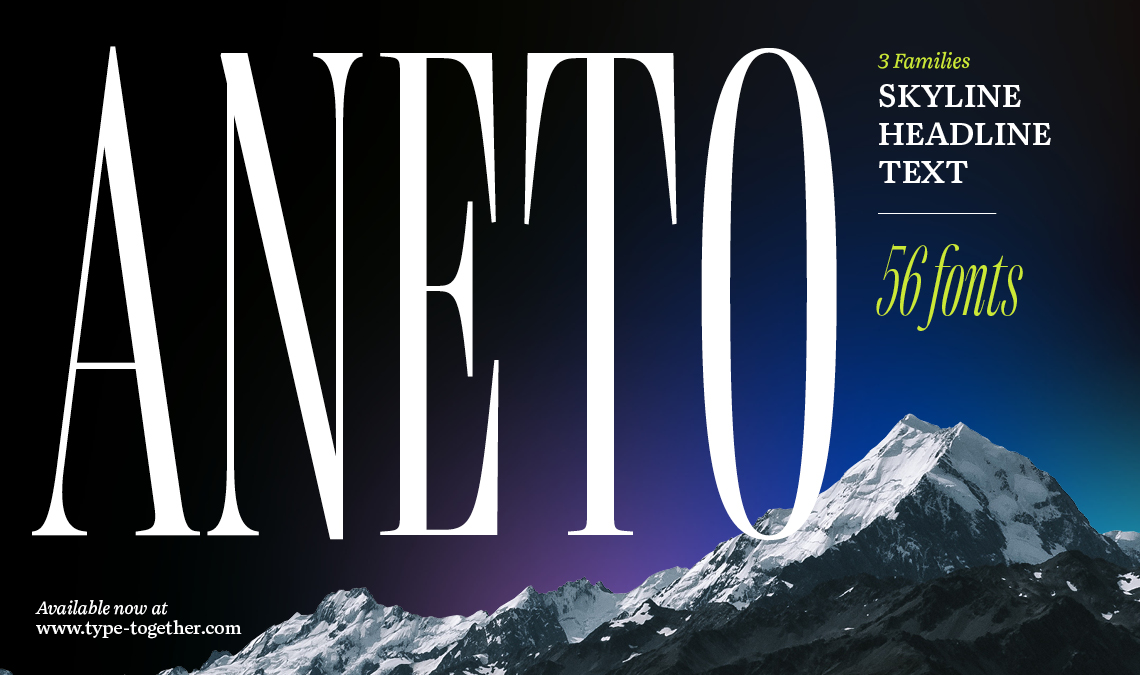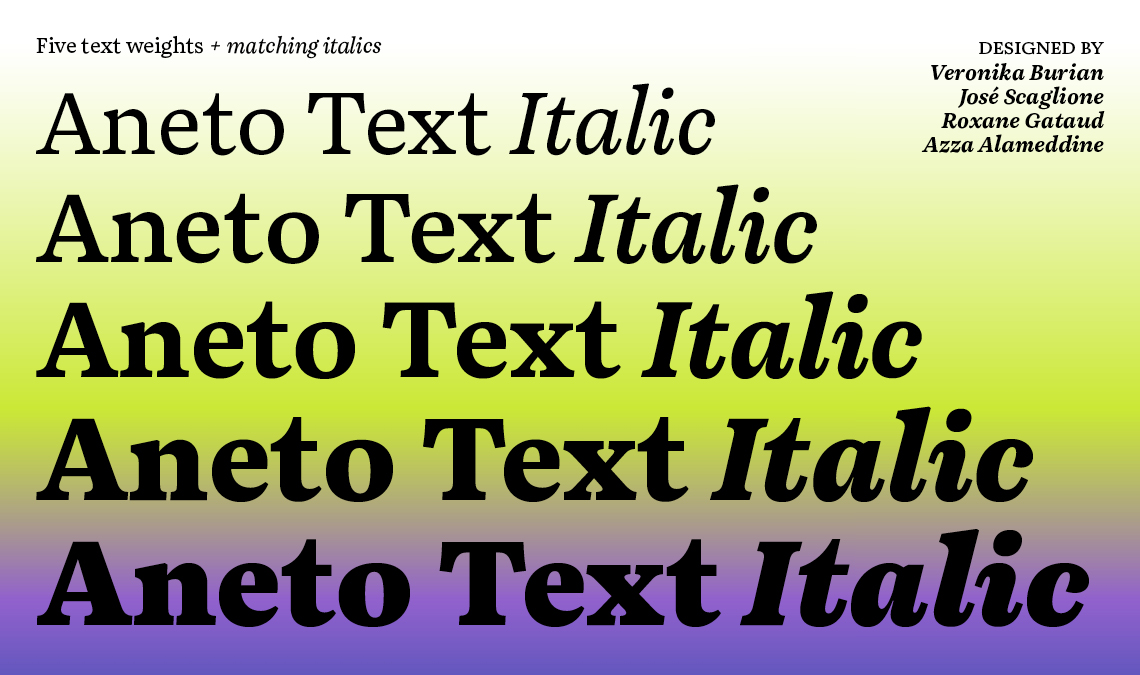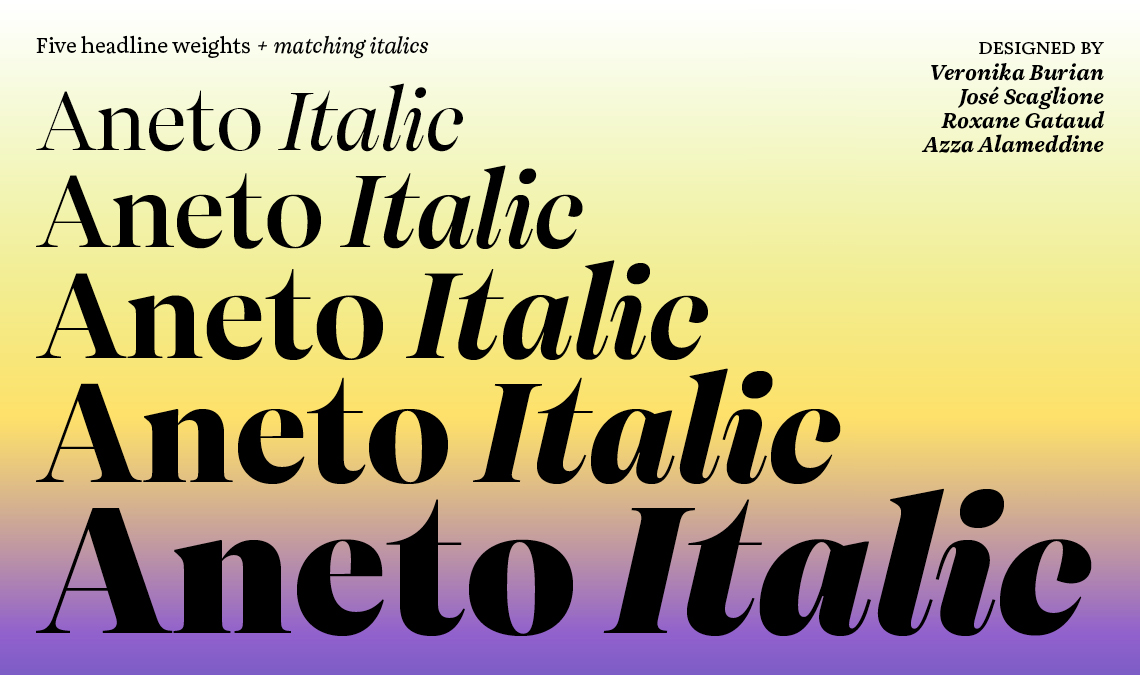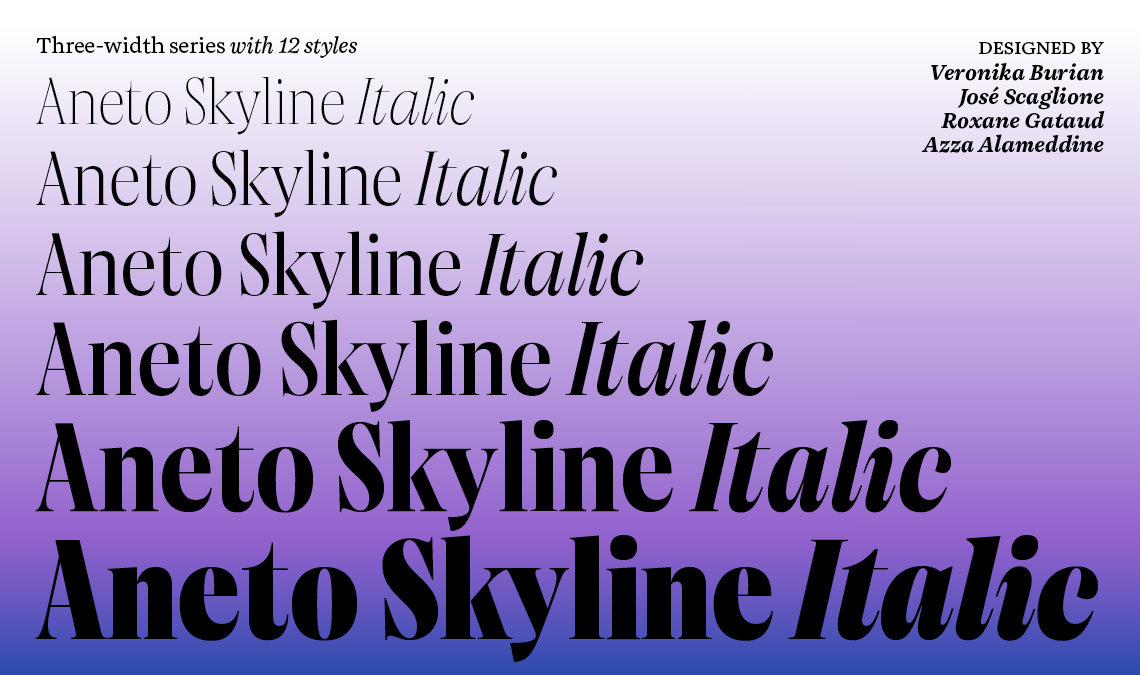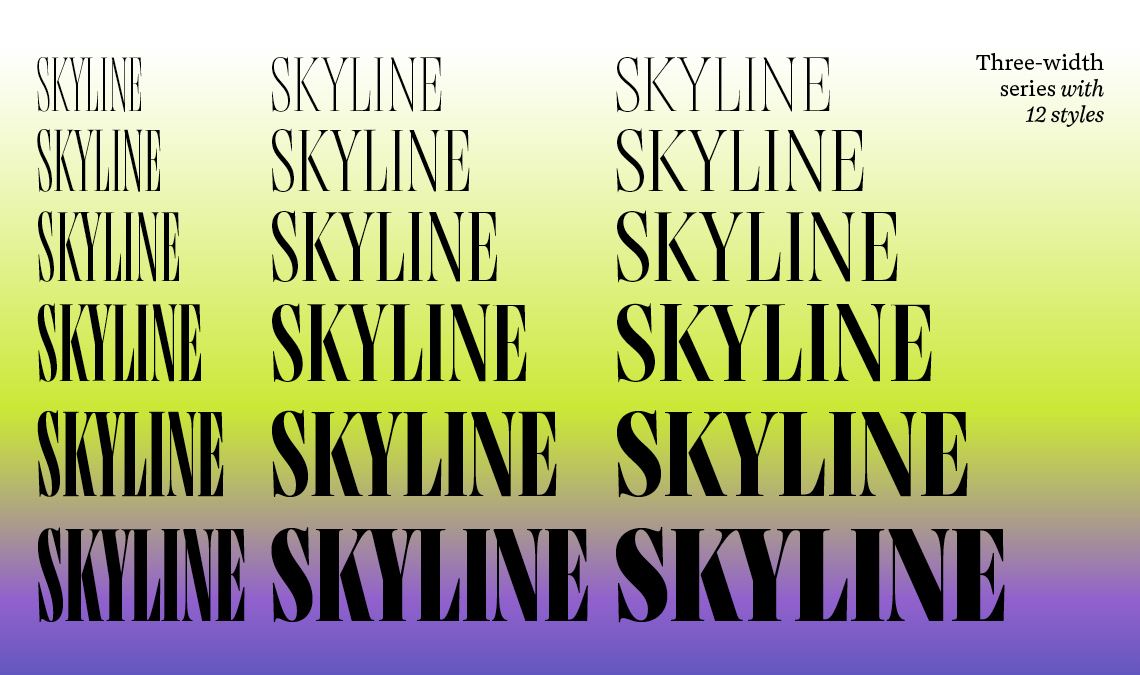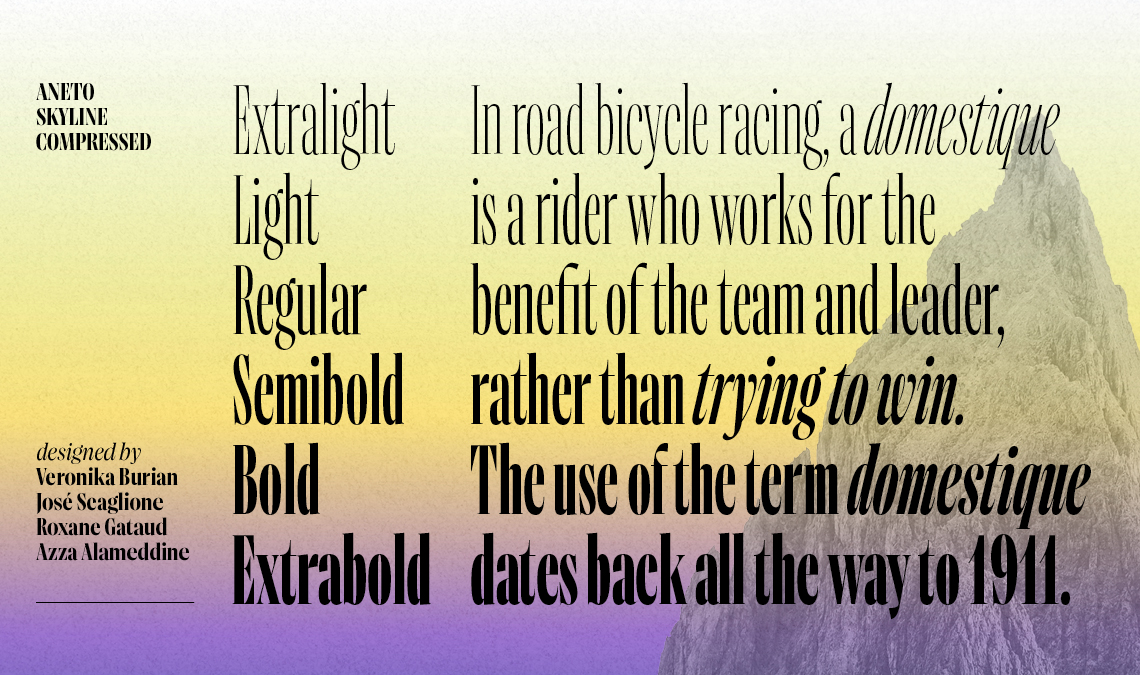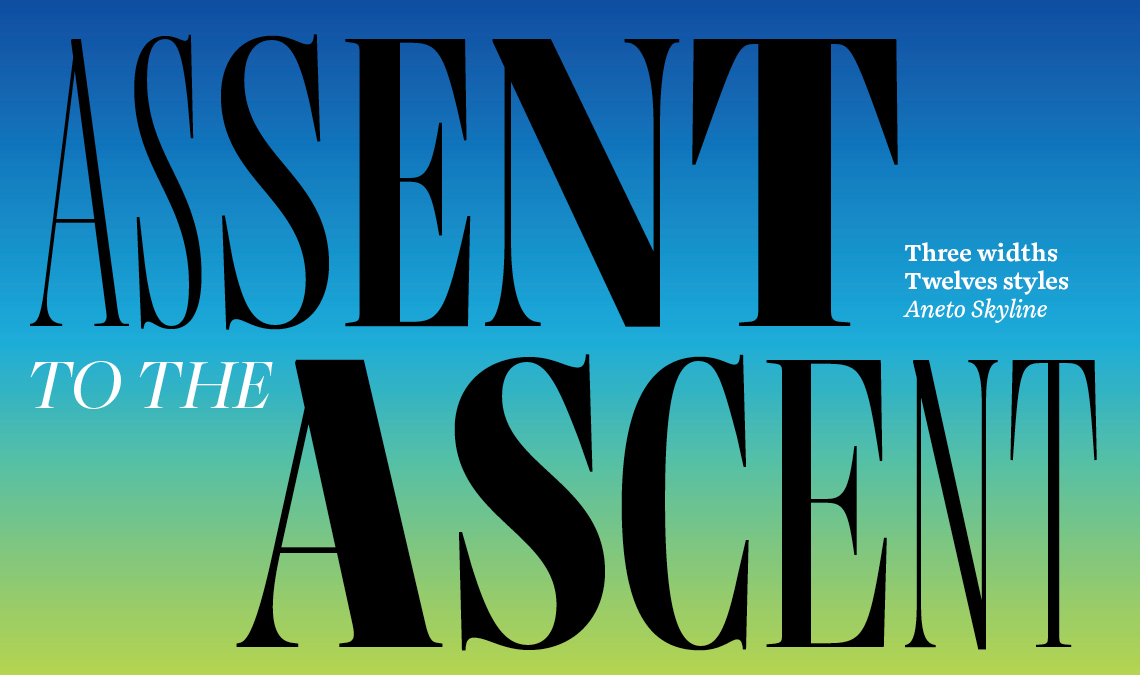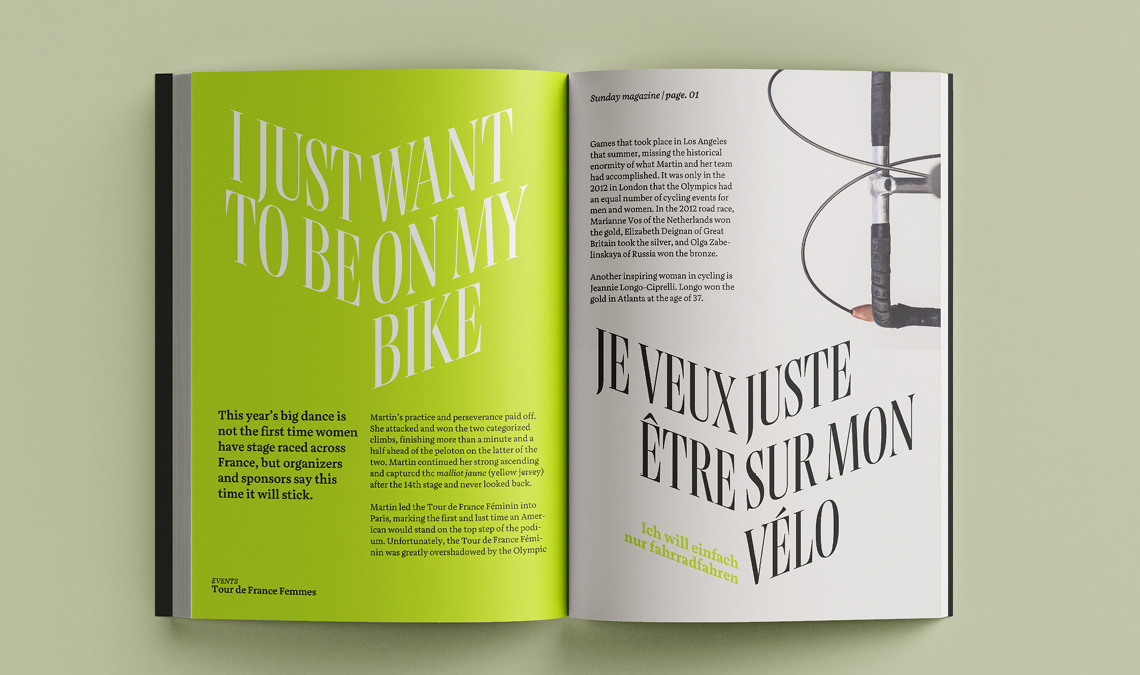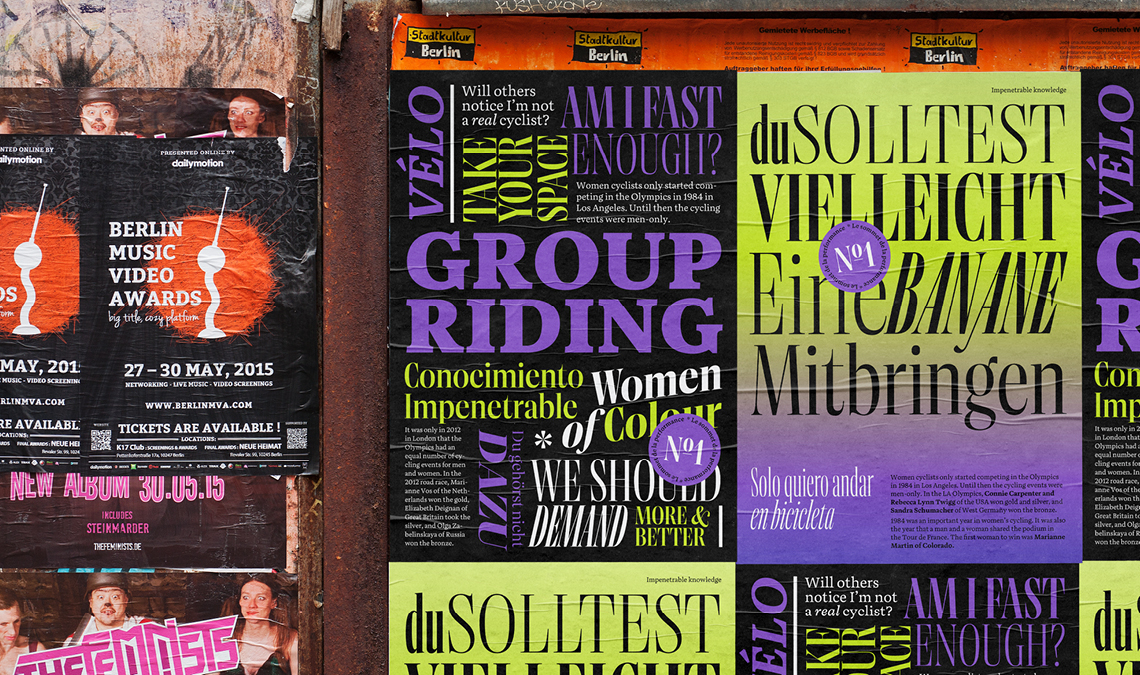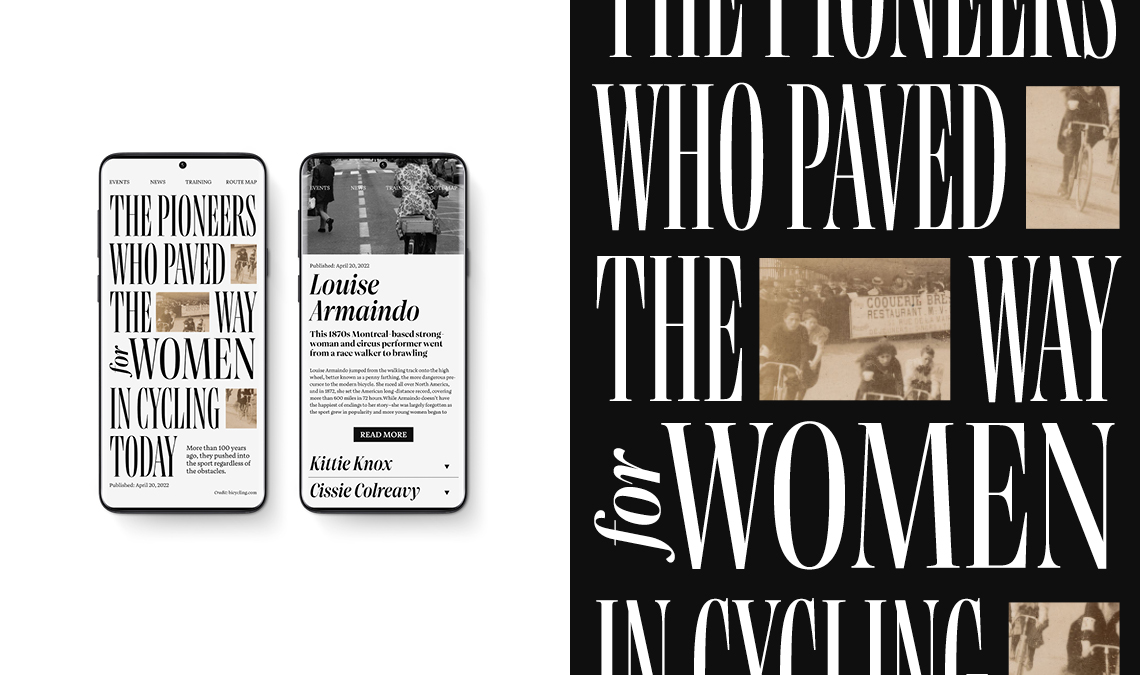
New release: Aneto
We are proud to introduce you to the entire Aneto family: Aneto Text, Aneto, and Aneto Skyline.
Designed from the ground up for digital newspapers, magazines, and books, the full family speaks with the right tone in each part of the hierarchy. Aneto Text handles all paragraph text and anything smaller. Aneto is perfect for all headings, subheads, and callouts. And Aneto Skyline was made for the tallest, most powerful headlines of the week. See them work together flawlessly on our website type tester.